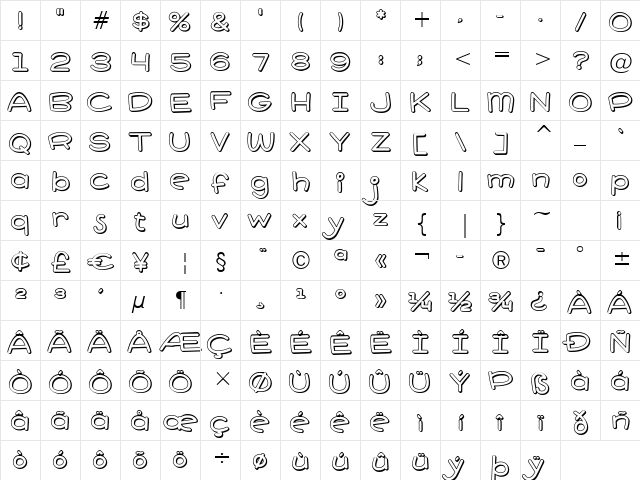
Pie Contest BTN Shadow Regular
Design Context for Pie Contest BTN Shadow Typeface
Pie Contest BTN Shadow brings ornamental detail and strong personality to headlines and identities, where visual impact matters more than quiet functionality.
Font Pairing: Pair with a clean neutral sans-serif for body copy to let Pie Contest BTN Shadow's character lead without overwhelming the composition.
Pro Tip: Treat Pie Contest BTN Shadow as the centrepiece of your typographic hierarchy. One strong heading set in a decorative face can carry an entire layout.